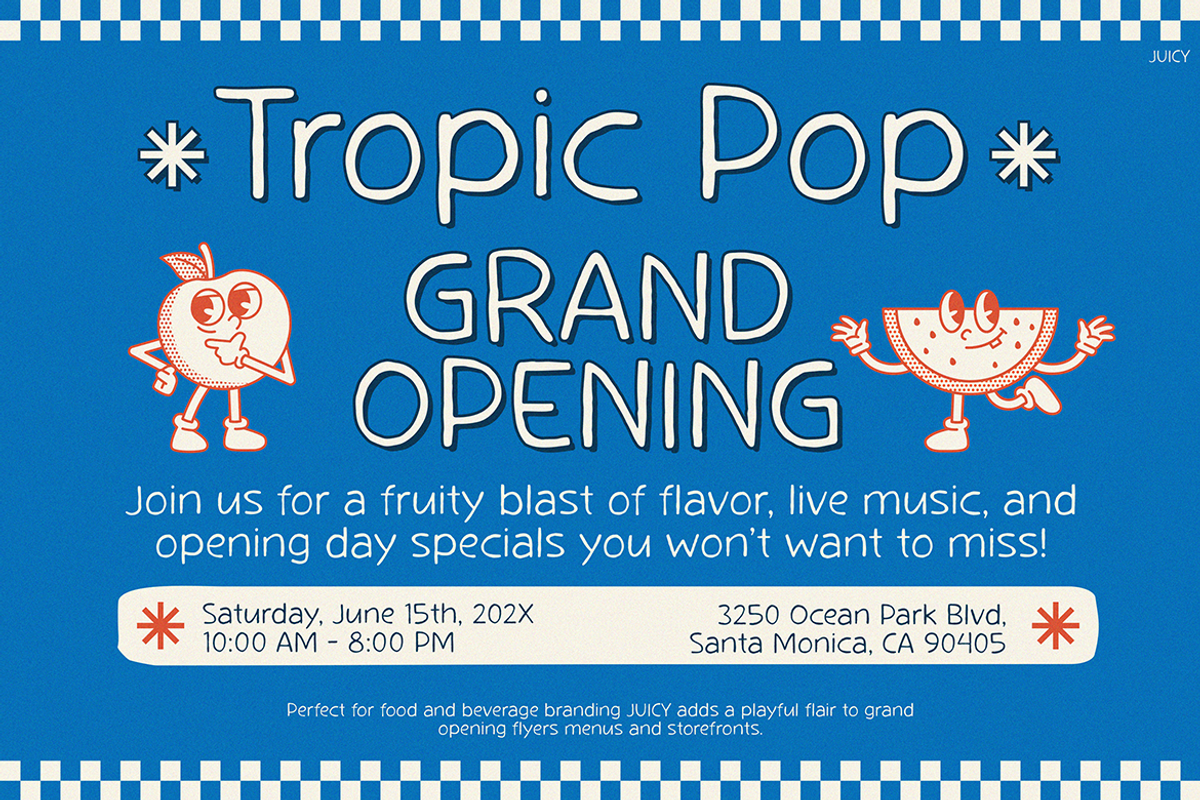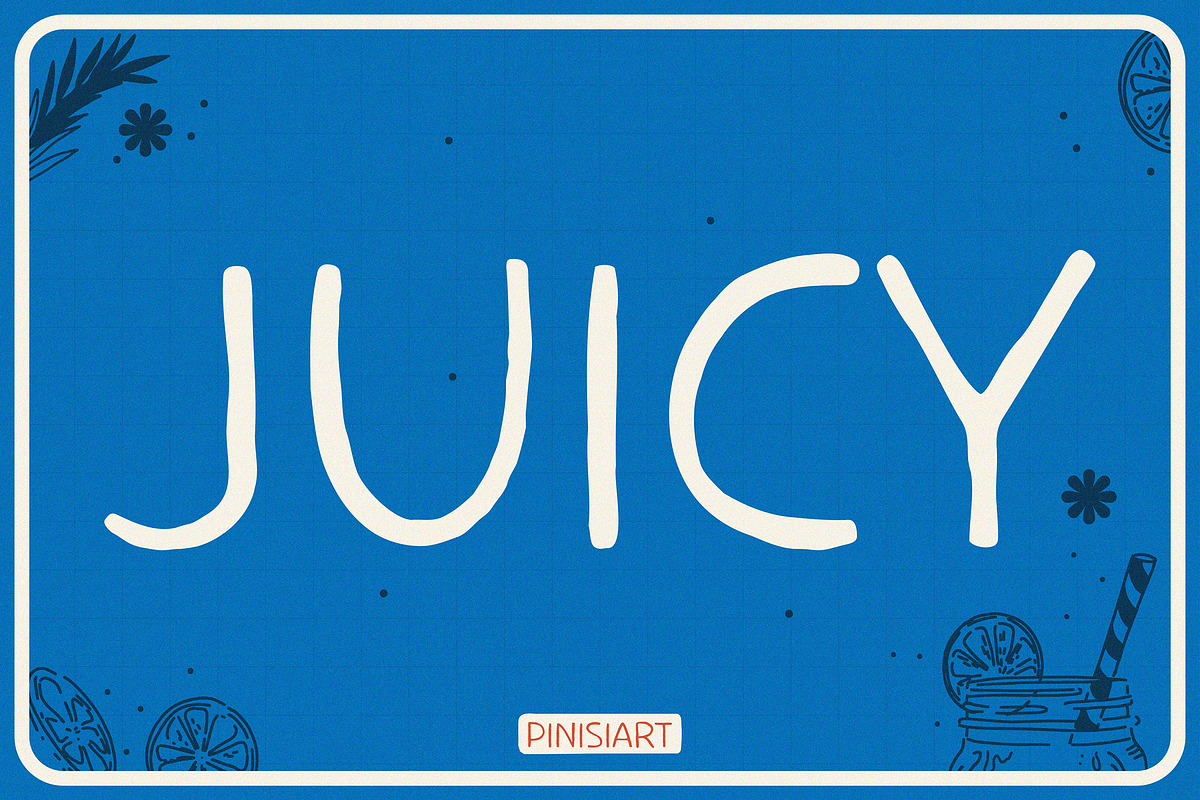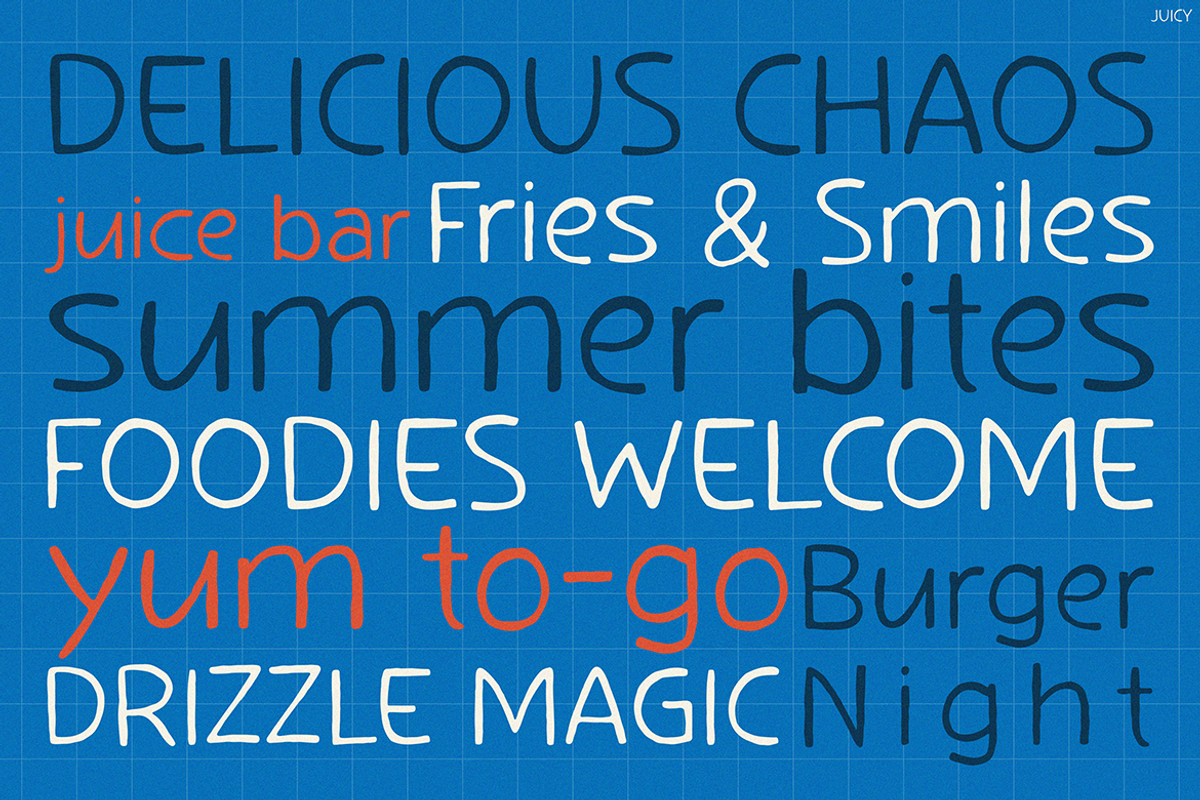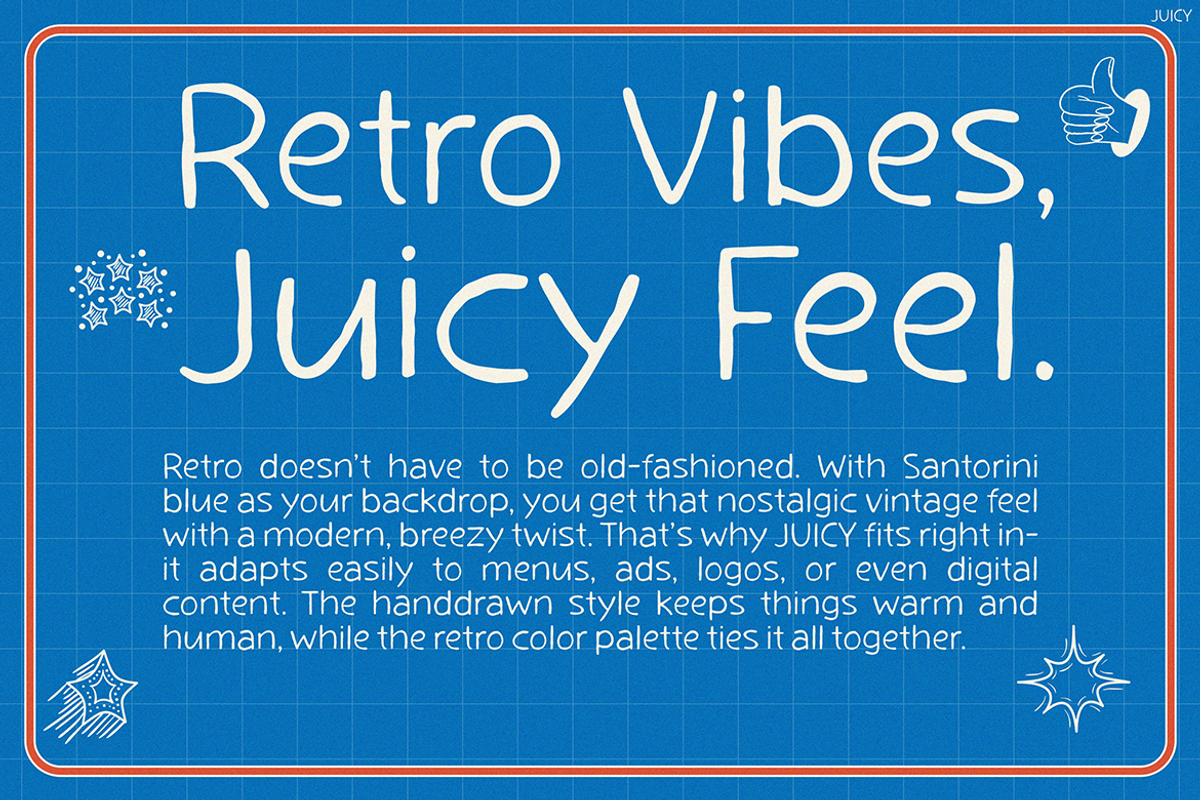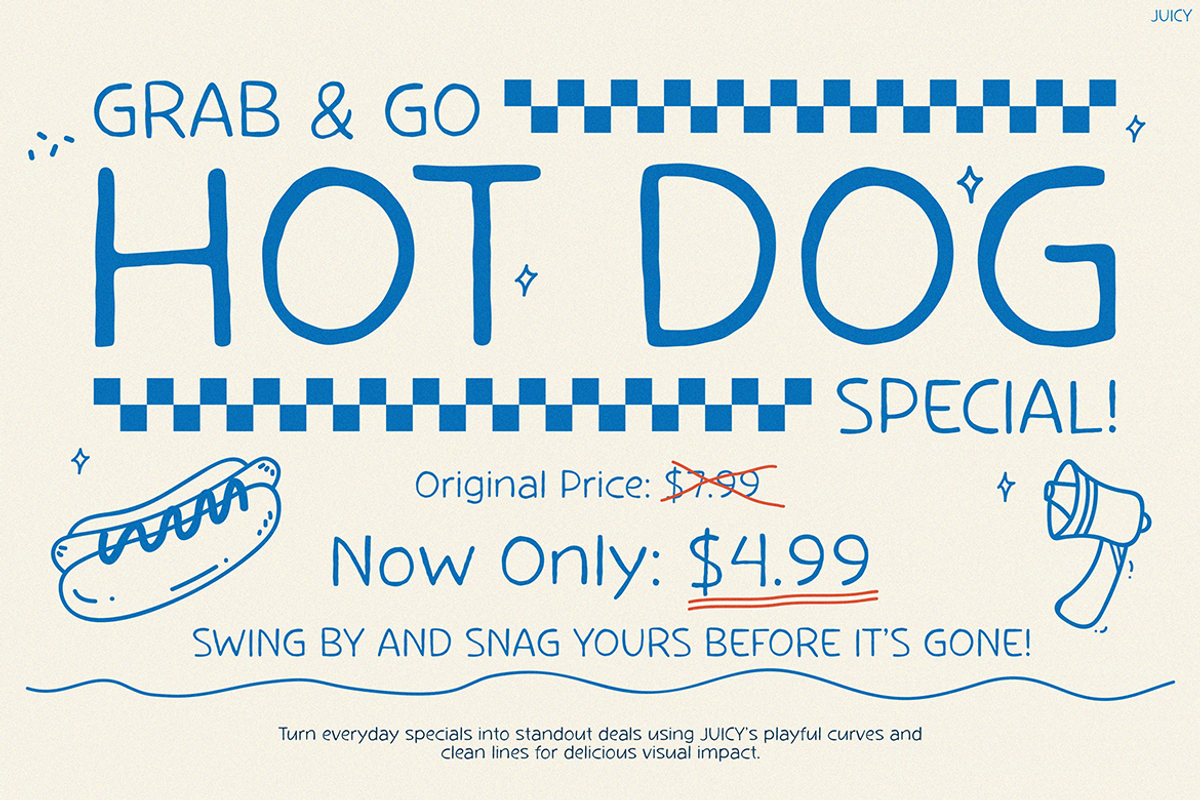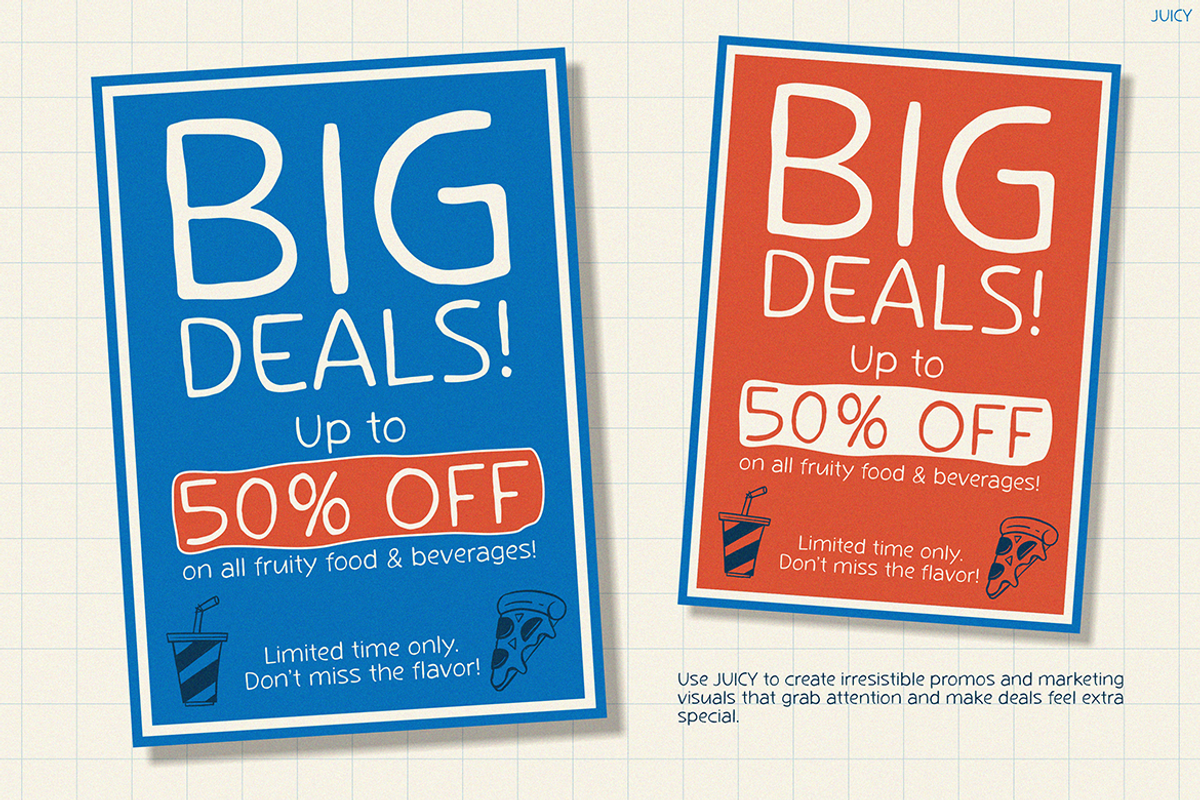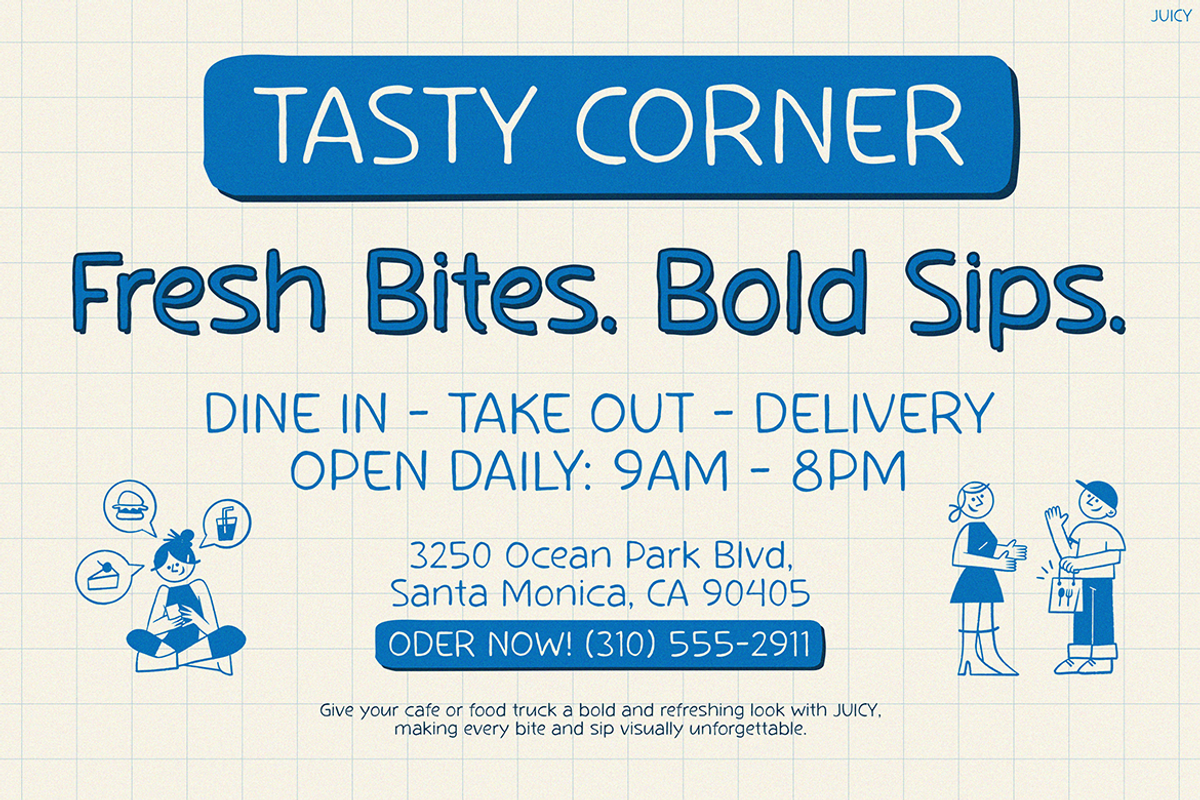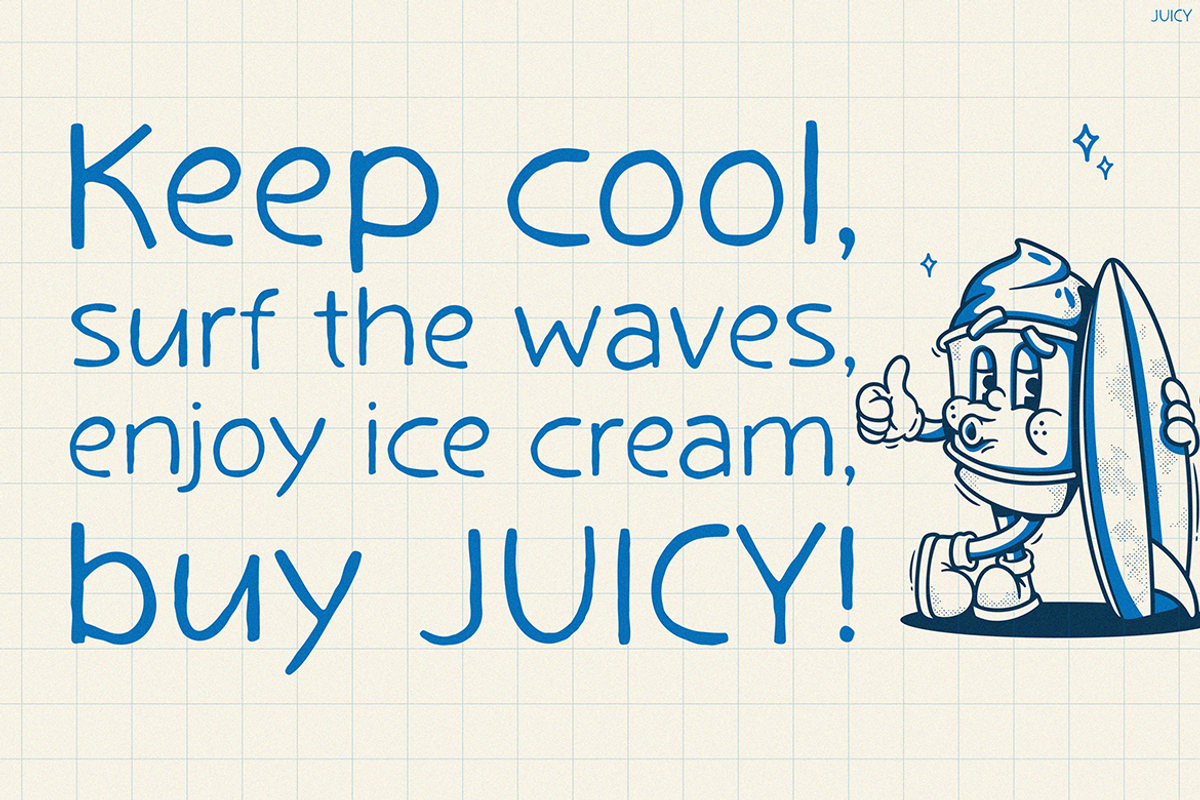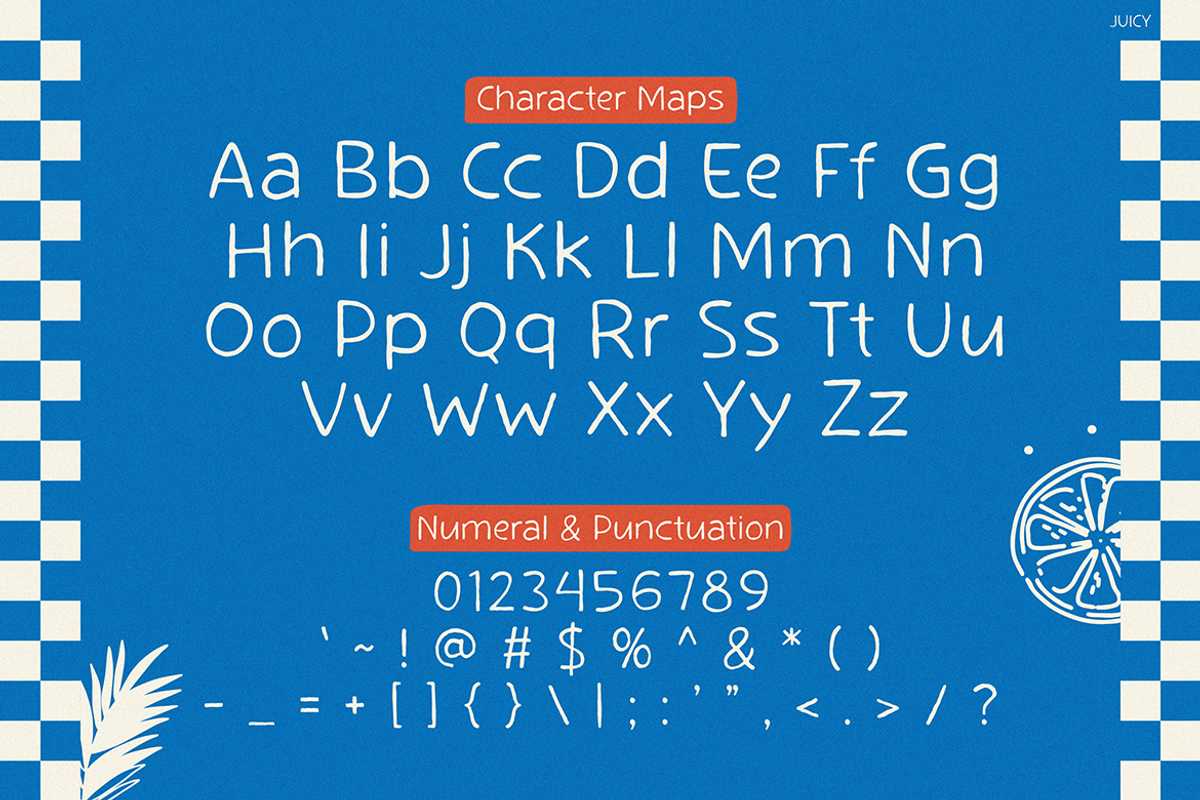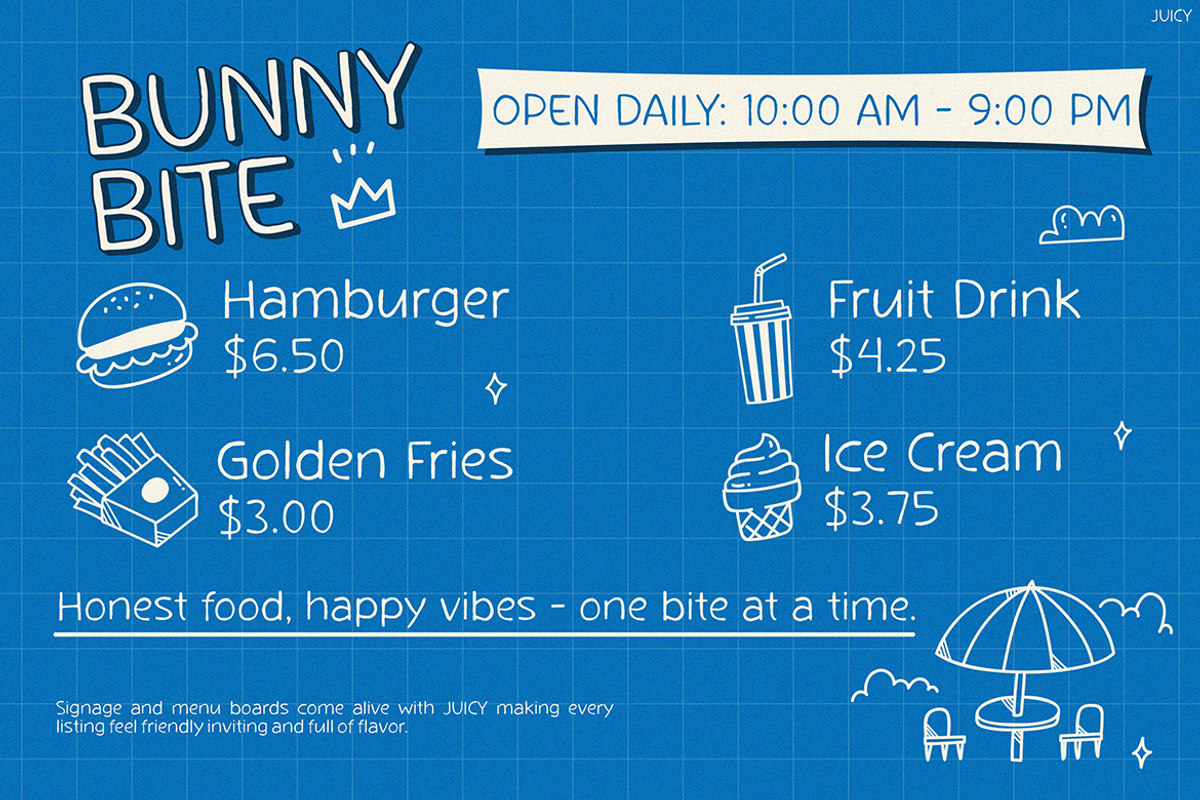
Juicy
Handwriting Font Juicy starts with a delightful twist. Furthermore, it blends retro vibes with a modern, breezy flair. This, in turn, sets it apart in typography. Its hand-drawn charm features playful curves and clean lines. Additionally, it exudes a nostalgic Santorini blue backdrop. Moreover, the font merges vintage aesthetics with a fresh, juicy feel. Consequently, it adapts easily to various projects. Bold letters come with whimsical stars and doodles. As a result, this creates a warm, human touch. Likewise, the retro color palette ties it together. Therefore, it enhances menus, ads, logos, and digital content. Ultimately, the design transforms ordinary pieces into standouts. In addition, it’s a top choice for personality and nostalgia.